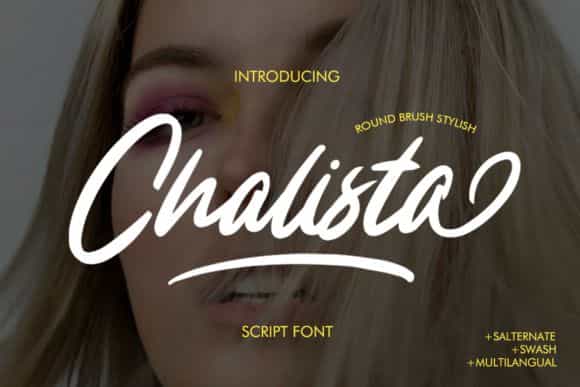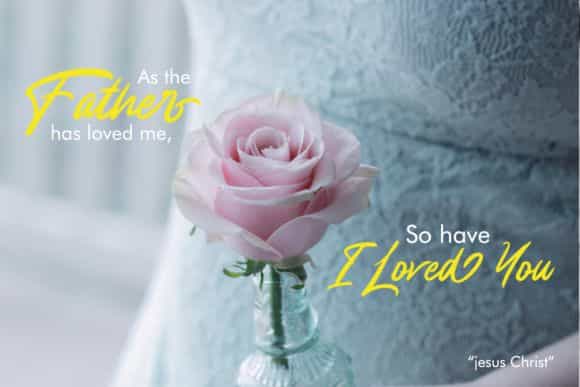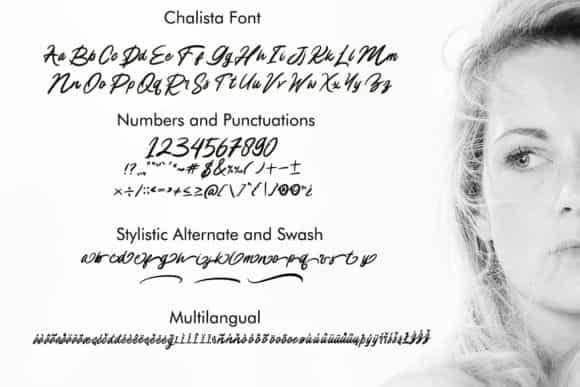
Chalista is a brush script font designed with sophistication in mind. It’s timeless and romantic feel makes it perfect for crafting wedding cards greeting cards, birthday invitations and more.